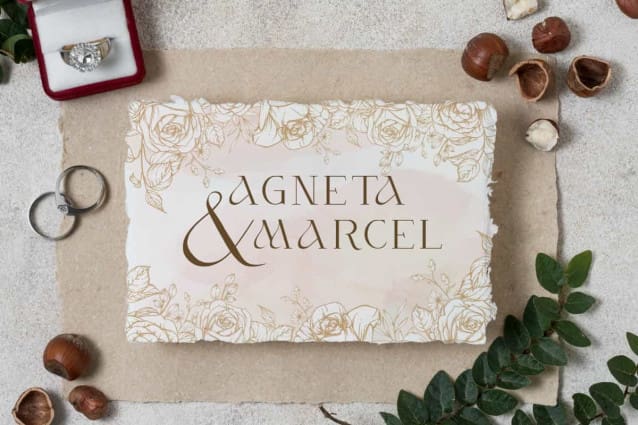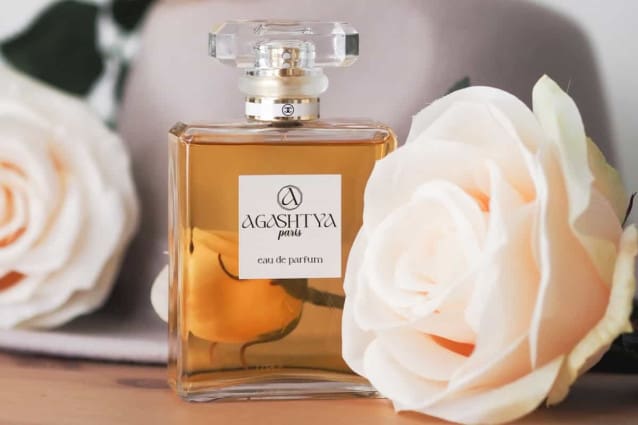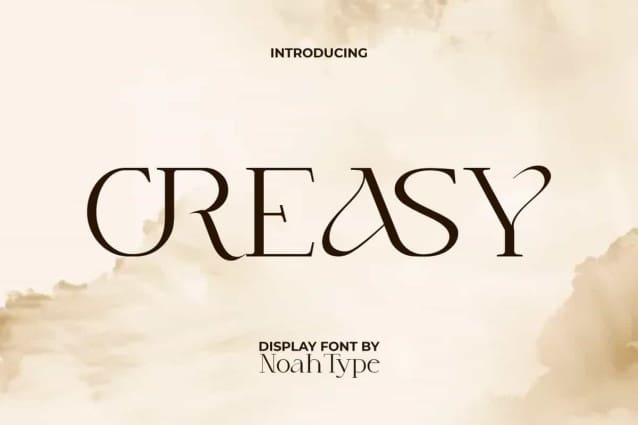
Creasy Font
Creasy Font is an elegant serif display font with a unique interlocking ligatures. This font has its own uniqueness with an appearance that looks luxurious at the same time. It will be perfect for any designs, such as brand image, cover, custom design, invitation, label, marketing material, menu, poster, product packaging, quote, signage, stationery, web, and many more!
Creasy Font includes full set of Uppercase and Lowercase Basic Characters, Numerals, Punctuation, and Symbol. This font has Ligature characters and will be perfect choice for many industries, such as advertising, art, beauty product, cafe, fashion, jewelry and accessories, perfume, printing, publishing, restaurant, etc.